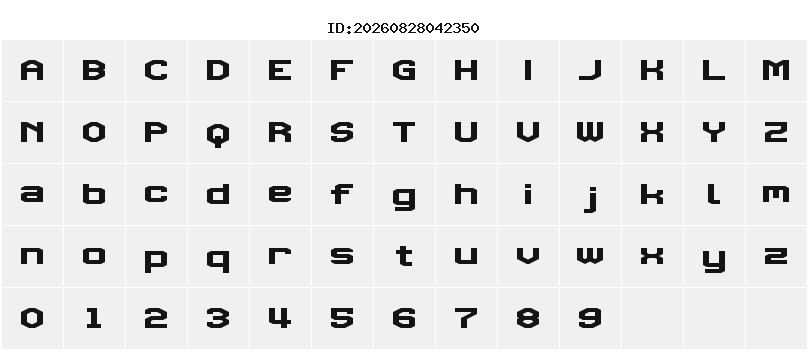
• Font Name: Triggering Fanfares
• Designer: NAL
• Description: “Triggering Fanfares” was built with FontStruct
Triggering Fanfares.ttf is a modern, elegant sans-serif font designed for ultimate readability and visual harmony. Perfect for branding, headlines, web design, and print materials.